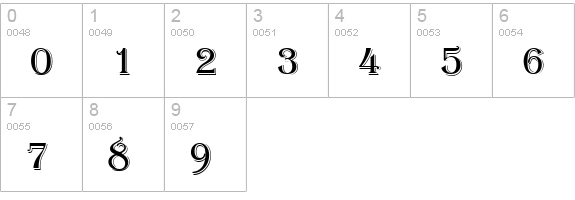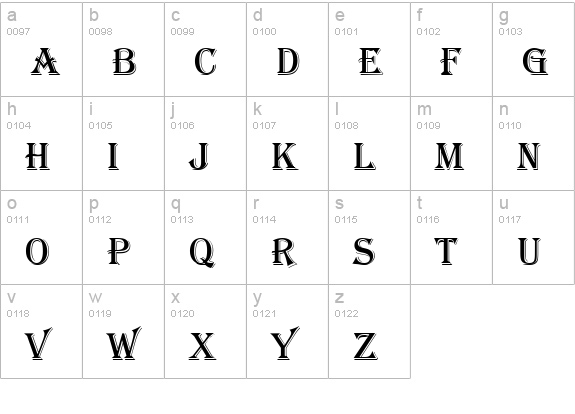
AlgerianD Font Details
AlgerianD is a stunning and elegant font that exudes a sense of sophistication and luxury. With its intricate details and unique design, this font is perfect for adding a touch of style to any project. The classic and timeless look of AlgerianD makes it versatile and suitable for a wide range of design applications, from logos and branding to invitations and signage. Best of all, AlgerianD is available for free download at FontsMarket.com. This means you can easily access this beautiful font and use it in your projects without any cost. Don't miss out on the opportunity to enhance your designs with the exquisite charm of AlgerianD. Download it today and elevate your creations to the next level.